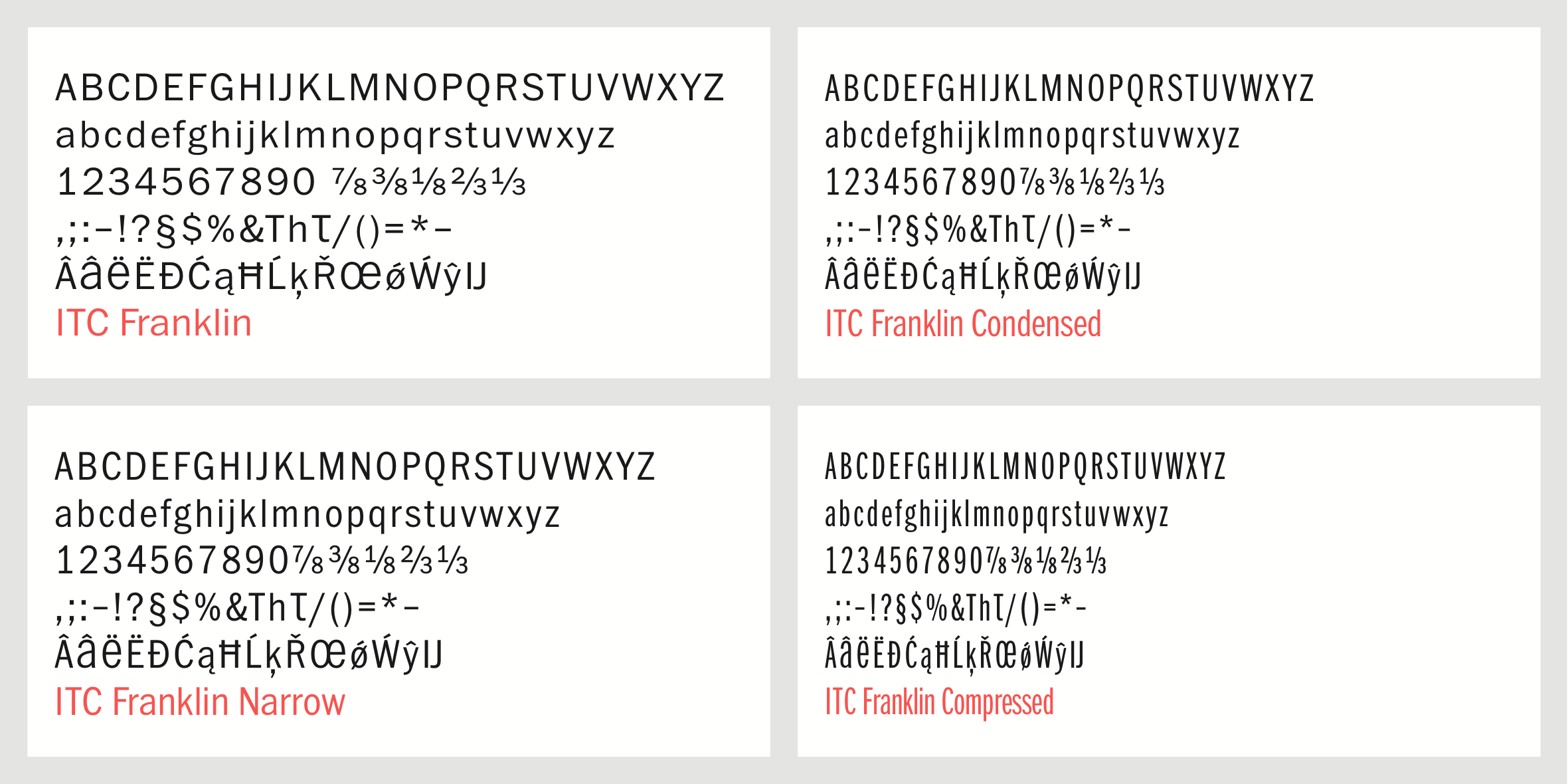
ITC Franklin Font is perfect for professional business presentations, corporate identity systems, modern financial services branding, clean technology company logos, contemporary website designs, sleek annual reports, institutional signage systems, professional service firms, modern architectural projects, and sophisticated marketing materials that require timeless elegance with contemporary appeal.
This font is exciting because it represents the perfect evolution of classic American typography with refined letterforms that balance traditional readability with modern sophistication, creating a versatile typeface that works seamlessly across both digital and print applications. ITC Franklin Font features clean geometric construction and optimized spacing that ensures exceptional clarity while projecting professional confidence and contemporary style.
ITC Franklin Font family includes Regular, Bold, Light, Medium, Heavy, Condensed, Extended, and Italic versions, plus comprehensive punctuation sets, mathematical symbols, currency marks, and extensive multilingual character support that provide complete typographic solutions for international business and professional communications.
For professional business and corporate design needs, ITC Franklin Font Free Download delivers outstanding versatility and institutional credibility. The font's clean letterforms and professional character make it perfect for financial institutions, technology companies, and professional services seeking to communicate reliability, innovation, and corporate excellence. Its neutral yet distinctive design ensures excellent brand recognition without overwhelming the message. The character set includes optimized numerals and business symbols specifically designed for financial documentation and corporate communications. Professional designers appreciate its exceptional legibility at all sizes and its ability to convey both trustworthiness and forward-thinking vision across annual reports, corporate websites, and professional marketing materials, making it essential for businesses that want to project competence, reliability, and modern professionalism in today's competitive corporate landscape.